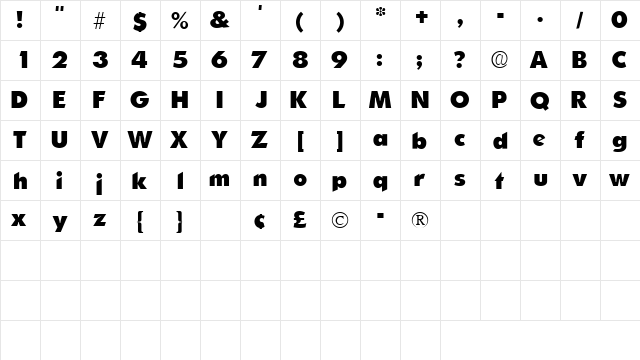
CandellaSSK Regular
Design Context for CandellaSSK Typeface
CandellaSSK offers clean, dependable letterforms without strong stylistic allegiance, making it a practical choice for designers who need flexibility.